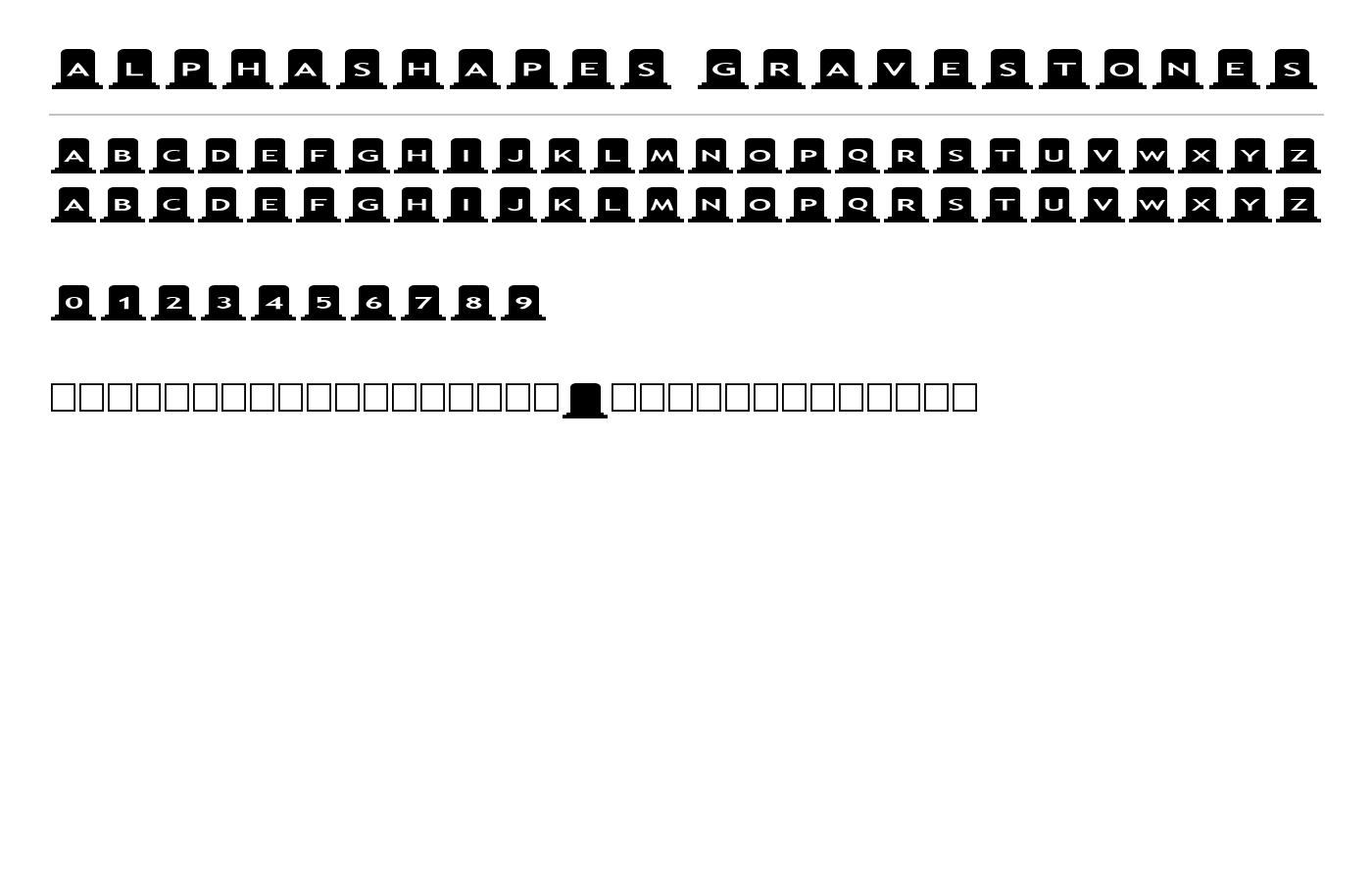
AlphaShapes Gravestones is a playful and bold display font featuring uppercase letters shaped like tombstones, combining solid block forms with a whimsical theme. Its heavy weight and strong silhouette make it perfect for eye-catching headlines or themed designs, especially around Halloween or spooky events. This fun and unique font adds a dramatic, eerie vibe to projects, ideal for posters, invitations, or novelty branding that wants to stand out with a gothic twist.
AlphaShapes gravestones Font
About AlphaShapes gravestones Font